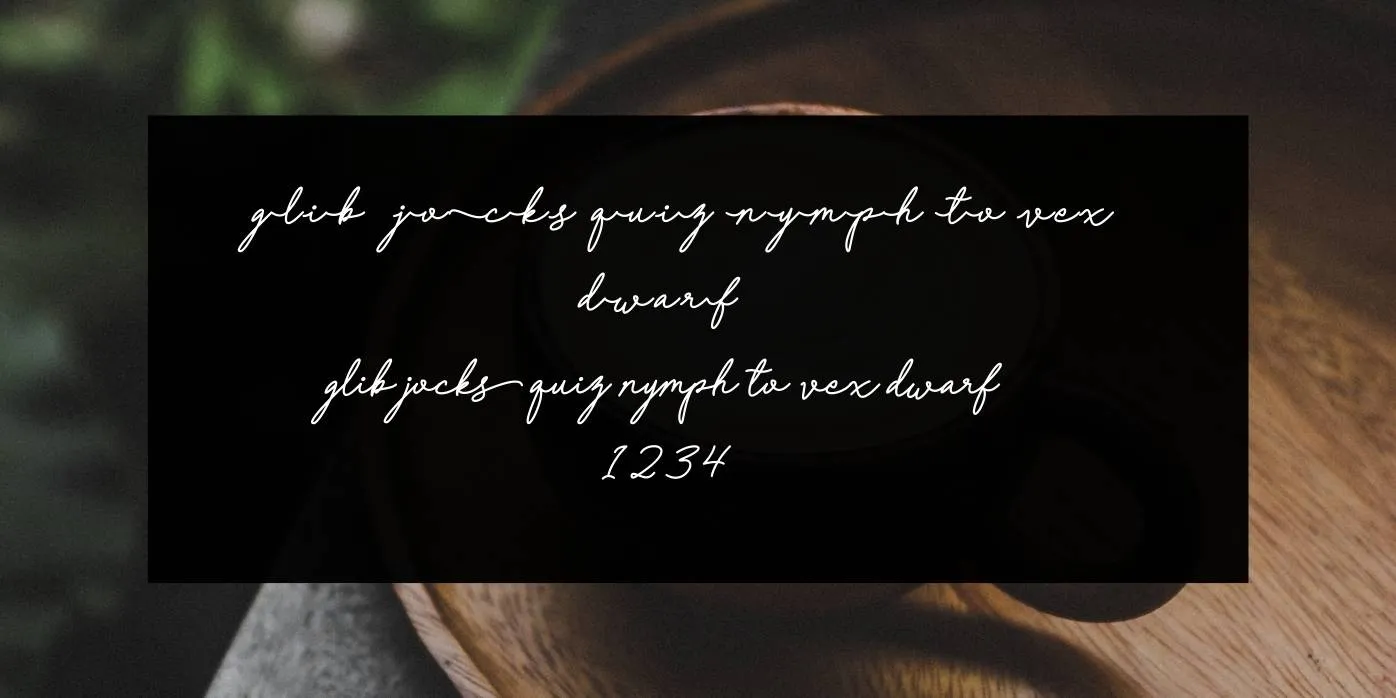
Coffee Signs Font
Coffee Signs Font is a coffee shop-themed font that was created by Brazil-based designer Guilherme Schneider. The font is inspired by the vintage coffee signs that were popular in the early 20th century. Coffee Signs Font is perfect for any coffee shop or cafe-themed project. The font includes both upper and lowercase letters, as well as numbers and punctuation marks.
It is also known for its immense language support same to the opinion pro font and it can support many different international alphabets. Many designers use this font in the Canva software because Canva is largely useable software these days to create a logo or any other design. Its character has a vintage feel with a modern twist. If you’re looking for a vintage-inspired font for your next project, this font is a great option.